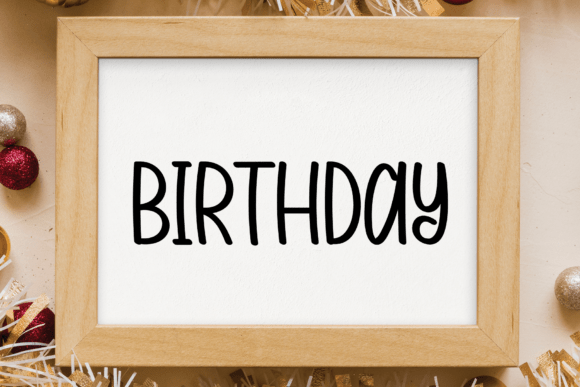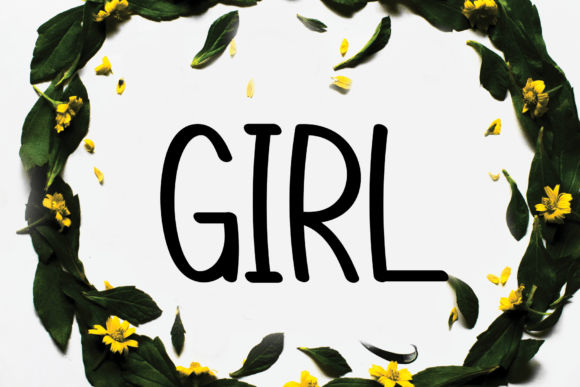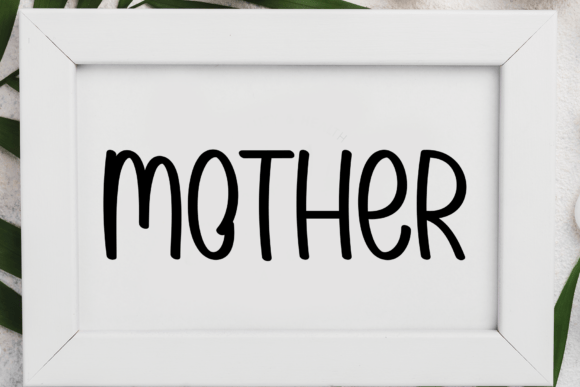
Introduction to Babyland Font
Do you remember the thrill of creating a handmade card for a newborn baby? The hours spent carefully cutting out letters, the delicate curves, and the sweet sentiment? For designers, it’s those special moments that make our job truly rewarding. And that’s exactly what the Babyland Font captures – the essence of childhood’s pure joy and whimsical wonder.
As a design resource, Babyland Font offers a unique blend of modern elegance and hand-crafted charm, making it an ideal choice for creative projects that require a touch of warmth and intimacy. With its tall, slender letterforms and organic curves, this high-quality font is perfect for nursery decor, children’s book titles, and newborn announcement cards. And the best part? It’s available for free download, allowing designers to easily incorporate it into their work.
Whether you’re working on a branding project for a baby-focused business or creating a design for a toy packaging, Babyland Font is sure to add a special touch to your work. Its friendly, handwritten style is perfect for creating a transparent background that lets your message shine through.
Key Features of Babyland Font
- High-quality design resource for creative projects, suitable for various applications including digital and print media.
- Unique and playful character set, perfect for adding a touch of whimsy to your design projects, including various symbols and icons.
Honest Review: Babyland Font
I recently had the chance to experiment with the Babyland Font, and I must say it’s been a delightful experience. As a designer, I’m always on the lookout for unique and high-quality design resources to elevate my creative projects. The Babyland Font definitely fits the bill.
- Unique and playful design aesthetic that’s perfect for baby-themed projects or family-related creative work.
- Translucent background makes it easy to place the font on top of other design elements without worrying about a cluttered look.
- Some users might find the font too cutesy or overly simplistic, which may not be suitable for more formal or professional projects.
- There’s a limited number of font styles available, which may not be ideal for users who require a wide range of typography options.
Overall, the Babyland Font is a fantastic design resource for anyone working on a creative project that requires a playful and whimsical touch. With its high-quality design and easy-to-use interface, it’s a great addition to any designer’s toolkit.
For the most out of Babyland Font, use it in creative projects that require a playful and whimsical touch. Some common use cases include designing baby shower invitations, creating children’s book illustrations, or making custom birthday party decorations. To get the best results, pair Babyland Font with high-quality images and a transparent background to create a visually appealing design.